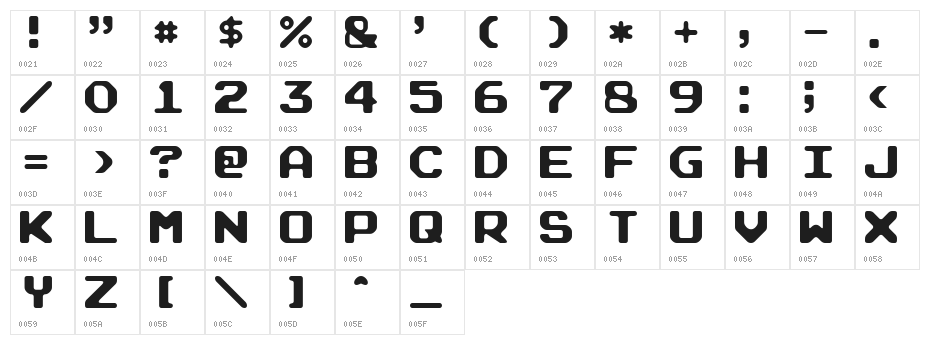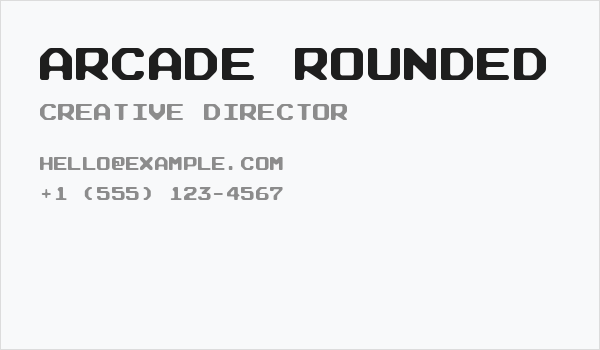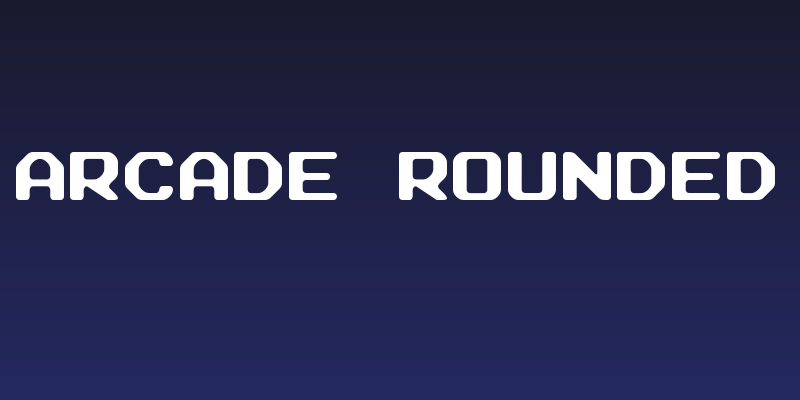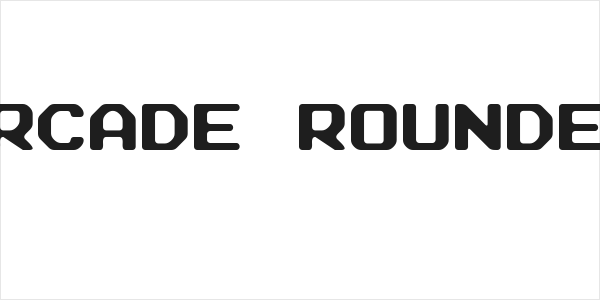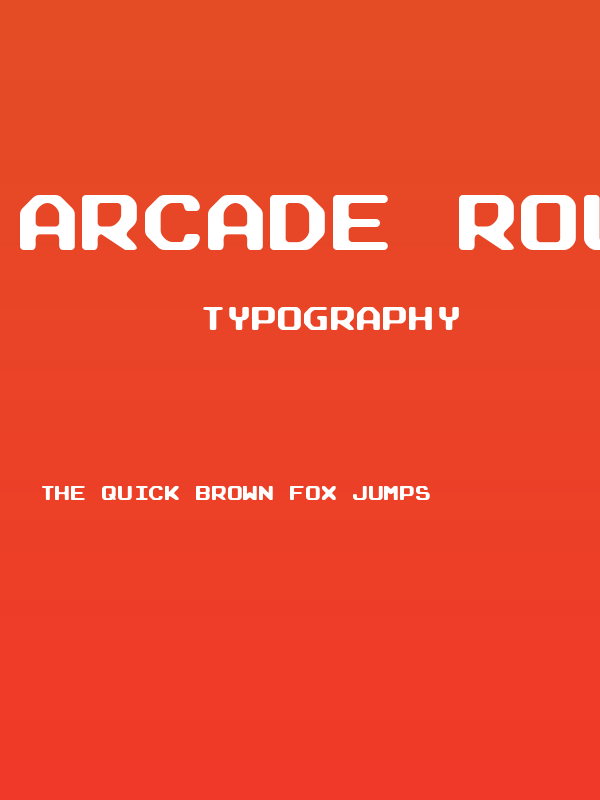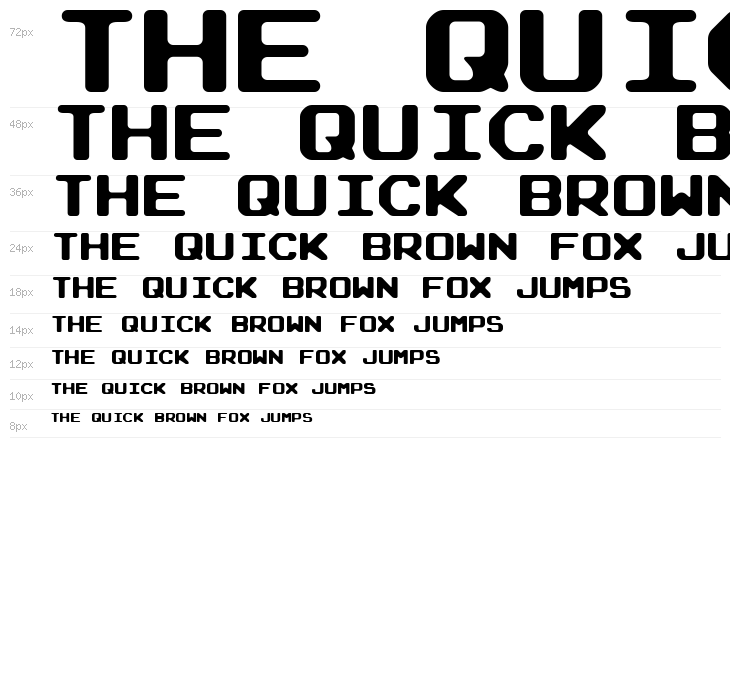
Arcade Rounded Font
Arcade Rounded Description
This font features a playful and retro design, reminiscent of classic arcade games. The characters are bold and rounded, giving a friendly and approachable feel. The uppercase letters are uniform in height, while the lowercase letters maintain a consistent style, enhancing readability. Numbers and special characters follow the same rounded aesthetic, ensuring a cohesive look across all text. The font's design is both nostalgic and modern, making it versatile for various creative projects.
| Overall Style | Retro, Playful |
| Proposed Projects | Ideal for video game graphics, retro-themed posters, and playful branding materials. |